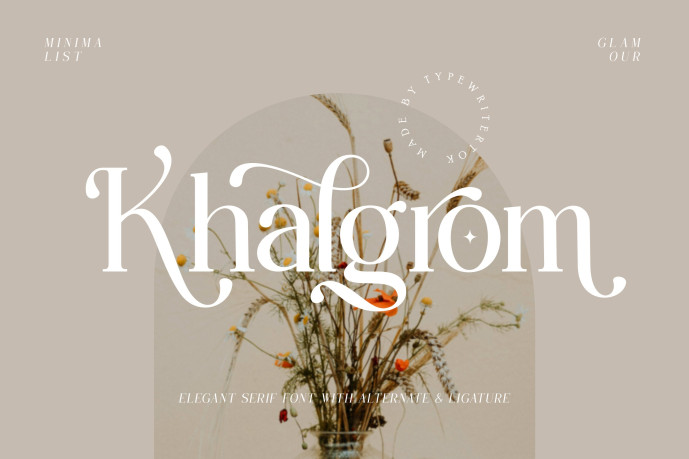
Khalgrom Serif Font
The Khalgrom font is a refined serif typeface that blends classic charm with a modern flair. Featuring graceful curves, high contrast strokes, and carefully crafted alternates & ligatures, it adds a touch of luxury to any design.
Perfect for branding, editorial design, fashion headlines, and wedding invites—Khalgrom brings glamour and delicacy to every letterform.
The Khalgrom serif font is also PUA-encoded, ensuring effortless access to all glyphs, swashes, and alternate characters to help you customize your creations with ease.